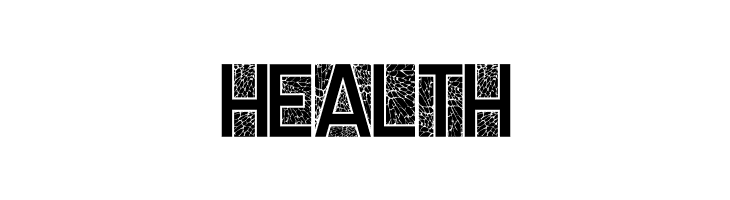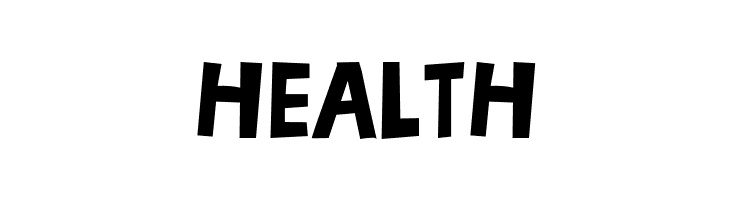
A whimsical collection of autumn-themed dingbats with hand-drawn illustrations.
A playful, casual handwritten font with smooth curves and a friendly appearance.
A graceful and elegant script font with flowing, cursive letters.
A playful, hand-drawn font with a casual and friendly vibe.
Casual handwritten font with a playful style.
A playful, whimsical script font with flowing, interconnected letters.
A playful, textured font with a hand-drawn, sketch-like style.
A bold, playful font with a quirky, hand-drawn style.
A bold, decorative font with a cracked glass texture, perfect for impactful designs.